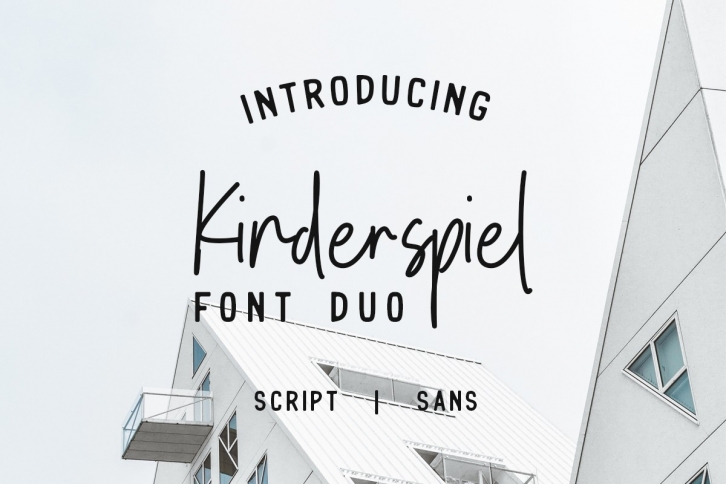
Kinderspiel is a trendy and unique font with an authentic style. It was designed by Youthlabs and it's a great choice for creative people who need such a font. It was released on July 26, 2018 and the file size is 15.3 MB. Kinderspiel will add an organic vibe to any design idea!